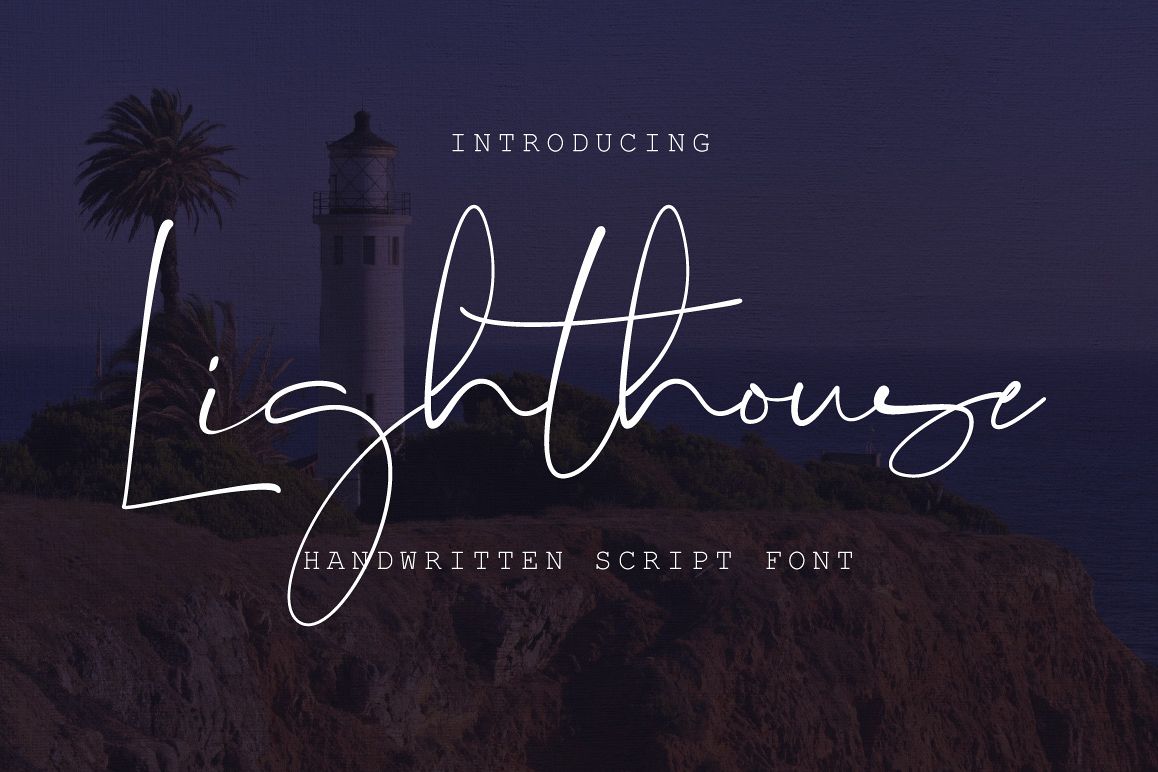
Lighthouse Script Font
Lighthouse Script Font is modern cursive font, every single letters have been carefully crafted to make your text looks flawless.